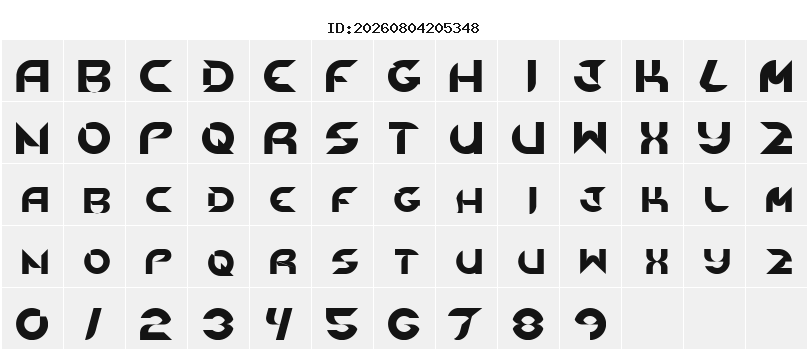
NewDigital Original Preview
• Font Name: NewDigital Original
• Font Style: Original
• Font ID: Macromedia Fontographer 4.1.4 NewDigital Original
• Full Font Name: NewDigital Original
• Version: Macromedia Fontographer 4.1.4 2/7/05
• PostScript Name: NewDigitalOriginal
About NewDigital Original.ttf
NewDigital Original.ttf is a modern, elegant sans-serif font designed for ultimate readability and visual harmony. Perfect for branding, headlines, web design, and print materials.